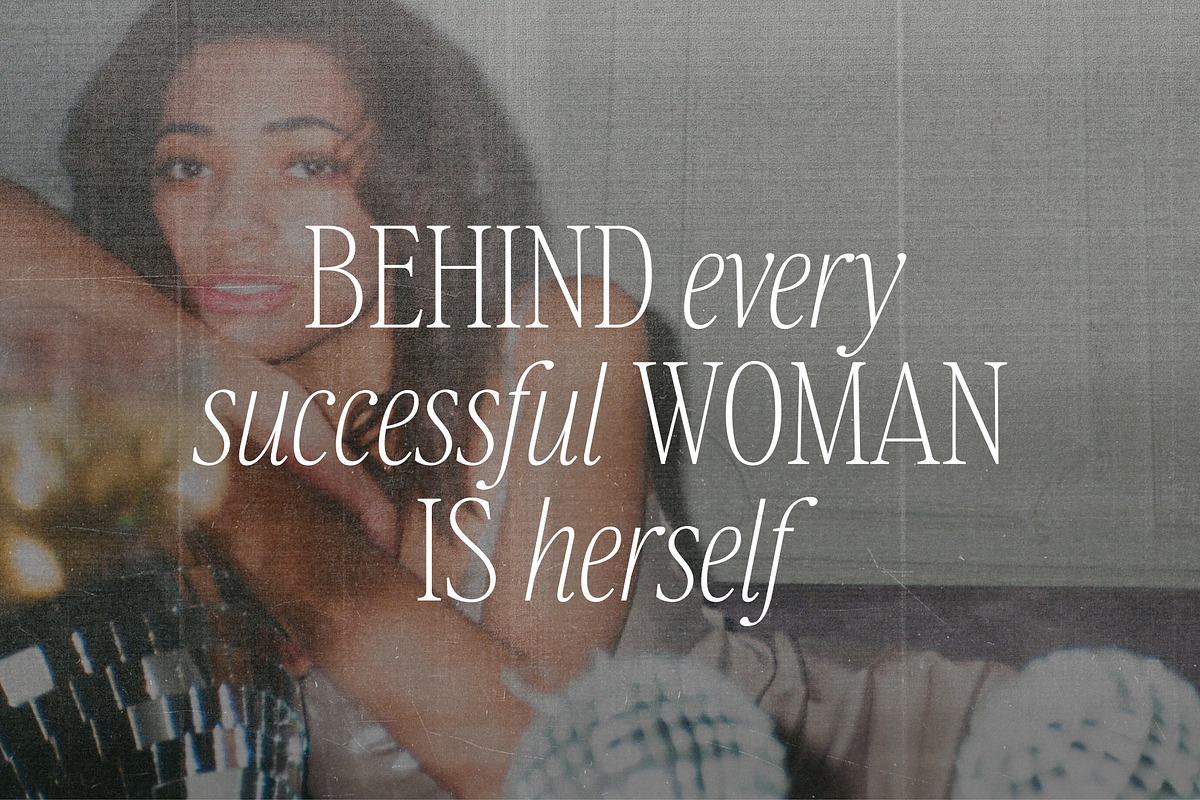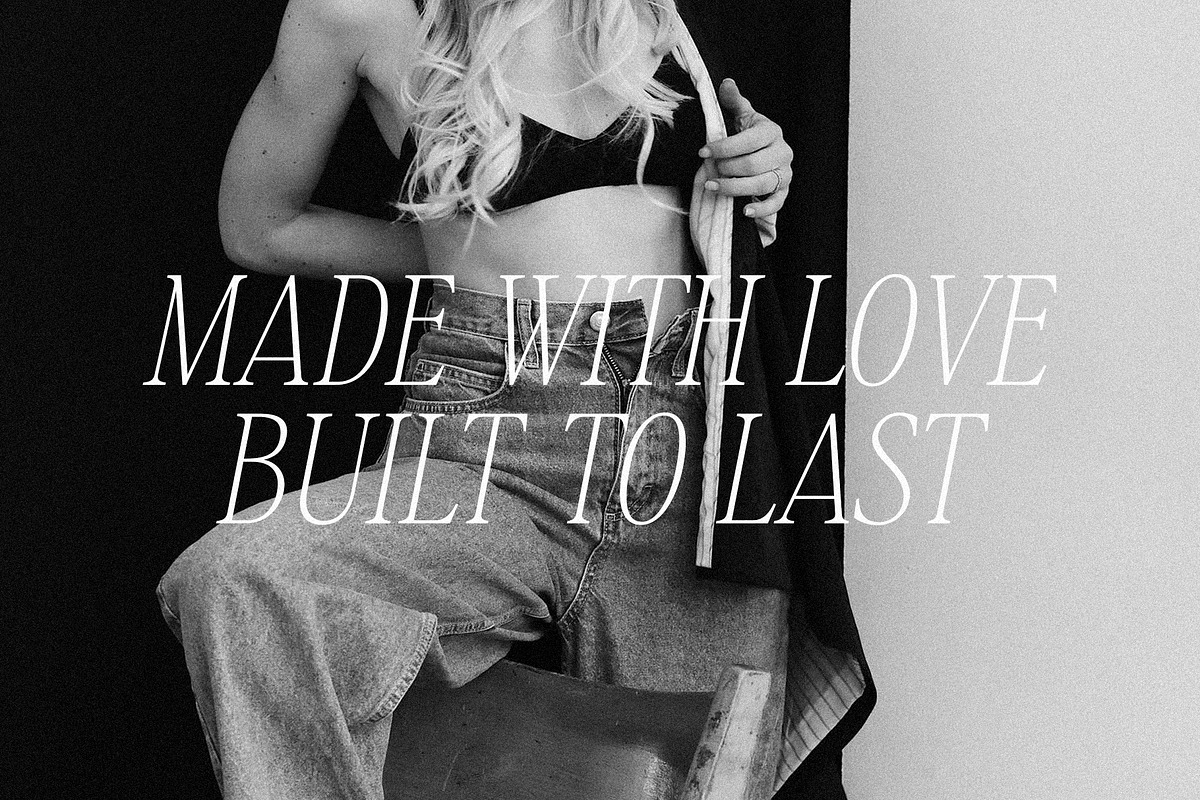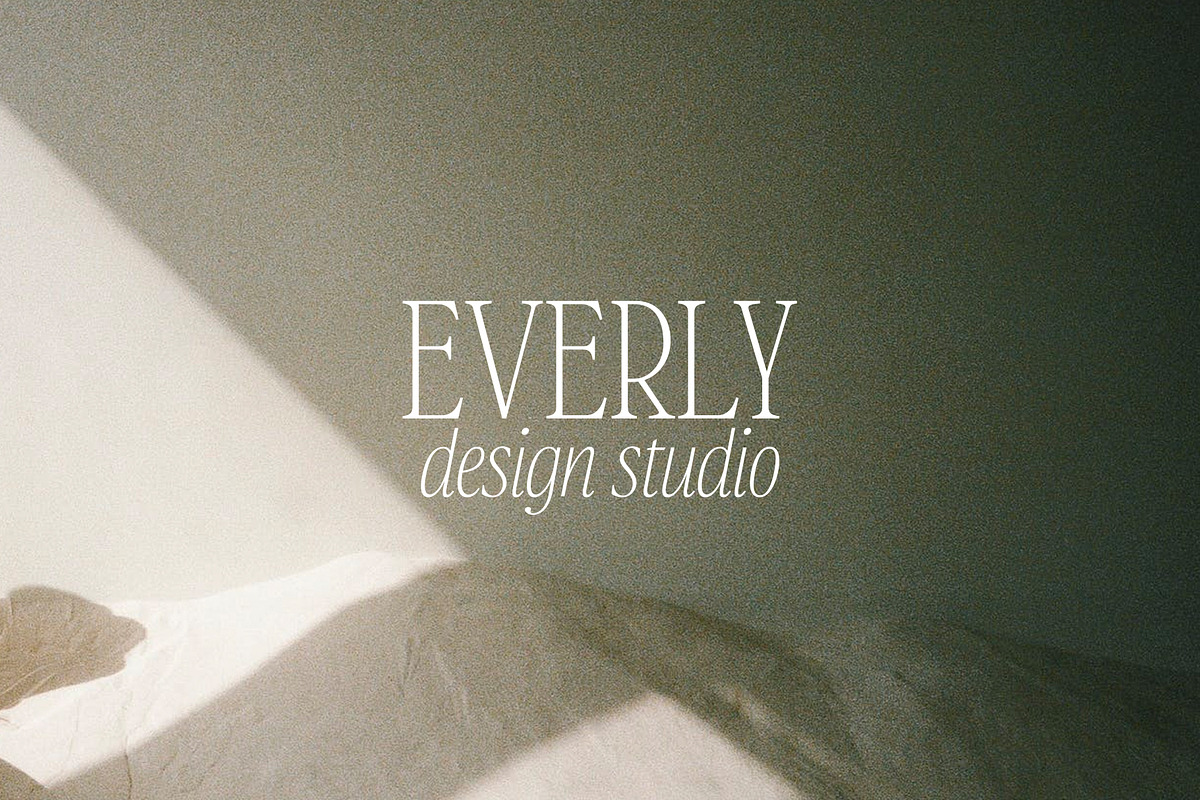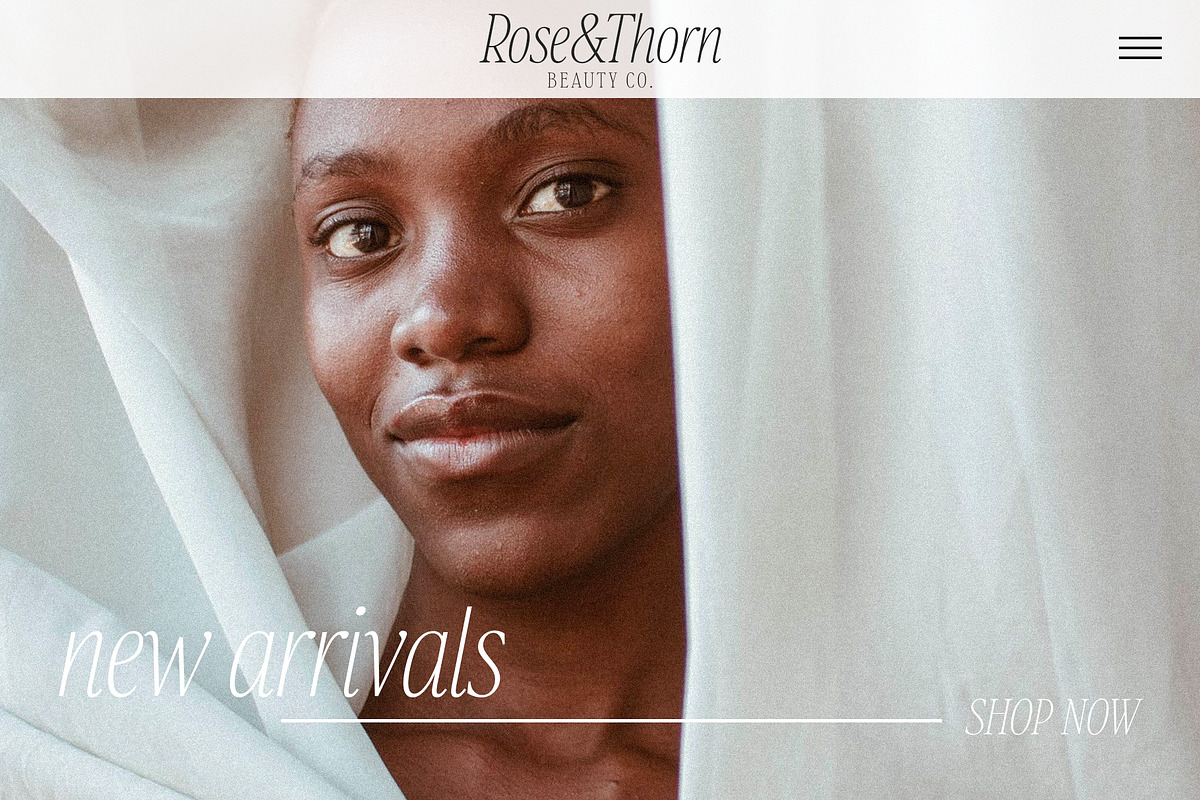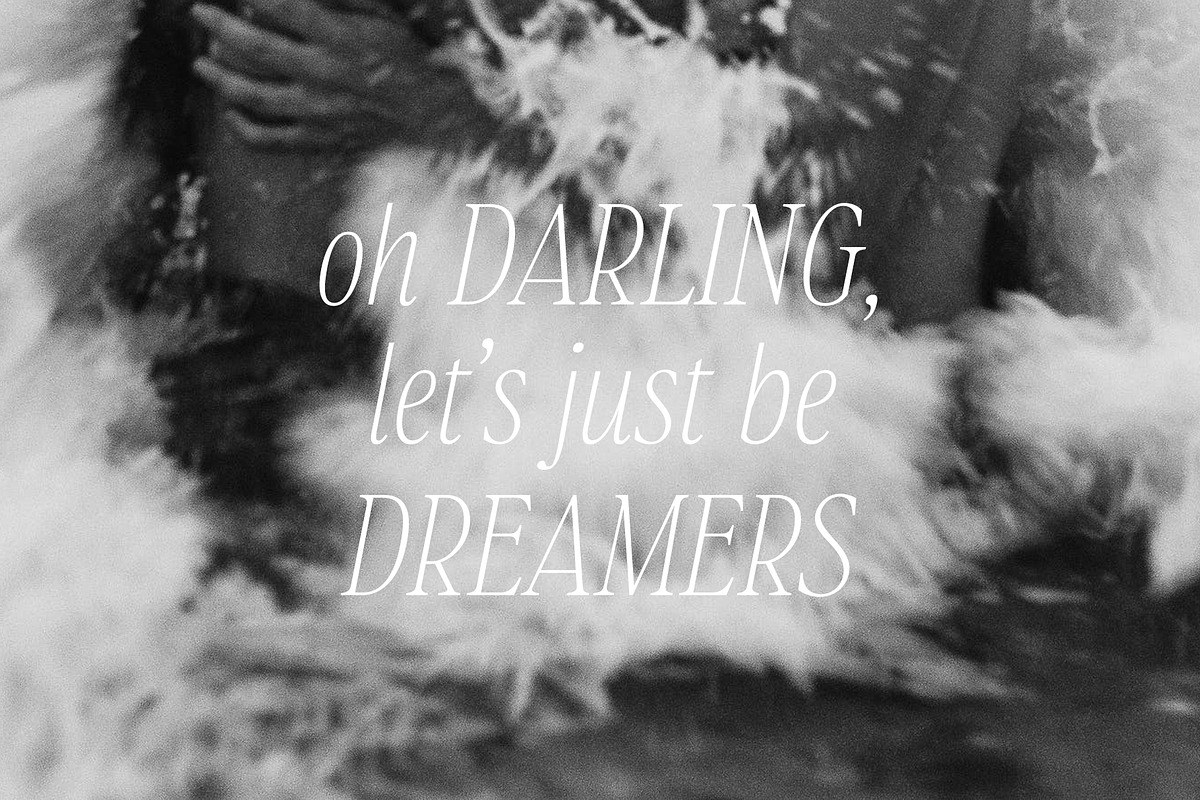
Montmartre is a romantic quote serif font. It was created with both graphic designers and business owners in mind, designed to be the perfect match for beautiful quotes and logos that come together effortlessly.
Elevate any project with uppercase and lowercase, numbers, extended punctuation, and Western/Central European language support.
- Effortlessly create stunning logos and quotes
- Customize your work with both Italic and Regular styles
Montmartre Serif Font